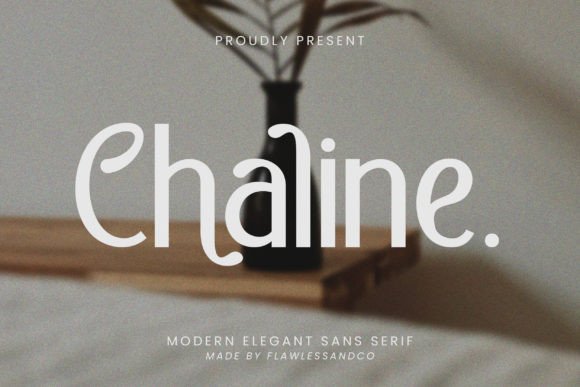
Experience the epitome of elegance with the Chaline Font, a modern and elegant sans serif masterpiece created by Flawless And Co. This refined font seamlessly combines sophistication with versatility, making it the perfect choice for any project that requires a touch of modern grace.
With its clean lines and subtle curves, Chaline exudes a sense of timeless beauty. It effortlessly elevates any design, whether it's luxury branding, editorial layouts, elegant invitations, or stylish social media graphics. Let Chaline be your secret weapon to add a touch of class to your creations.
Immerse yourself in the world of Chaline and unlock endless possibilities. Its captivating charm will leave a lasting impression on your audience, drawing them in and capturing their attention. Stand out from the crowd and make a powerful statement with this font that exudes confidence and sophistication.
The Best Fonts For Plain Text are those that not only convey your message clearly but also leave a lasting impact. Chaline is the embodiment of this ideal, with its legible and eye-catching design. It ensures that your content is not only easy to read but also visually captivating, making it impossible to ignore.
Don't settle for ordinary fonts when you can have extraordinary. Let Chaline elevate your designs and take them to new heights. Its versatility allows you to explore various creative possibilities, enabling you to truly express your unique style and personality.
Unleash your creativity with Chaline, the font that epitomizes modern elegance. Download it now and let your designs shine with sophistication and grace. Whether you're a professional designer or an enthusiast, Chaline is a must-have tool in your creative arsenal.
Experience the transformative power of Chaline Font and let your imagination run wild. Elevate your designs and captivate your audience with this modern, elegant sans serif font created to perfection by Flawless And Co.